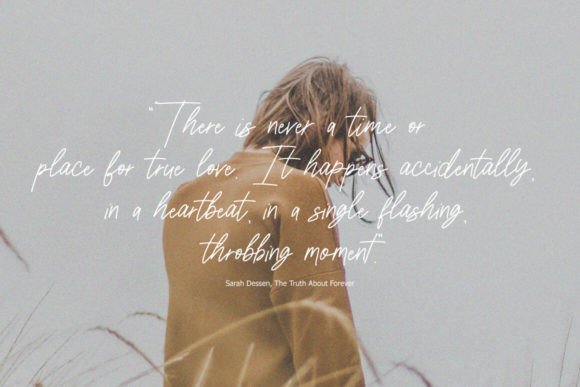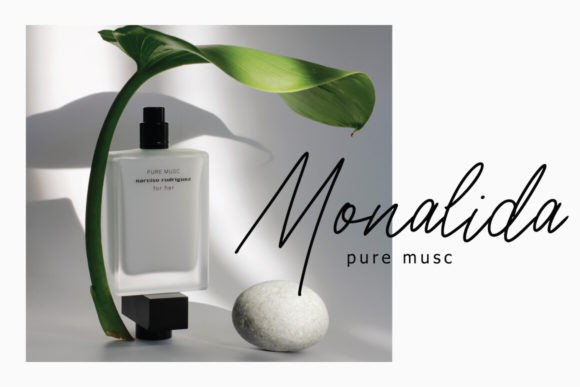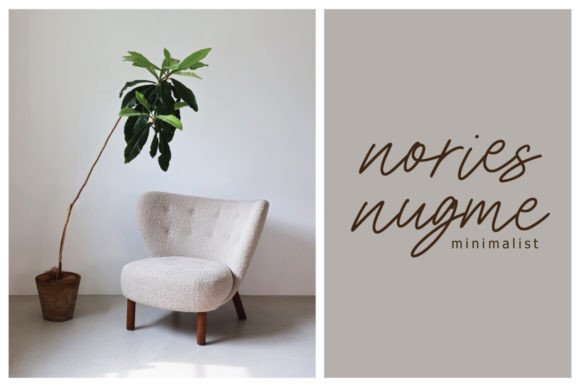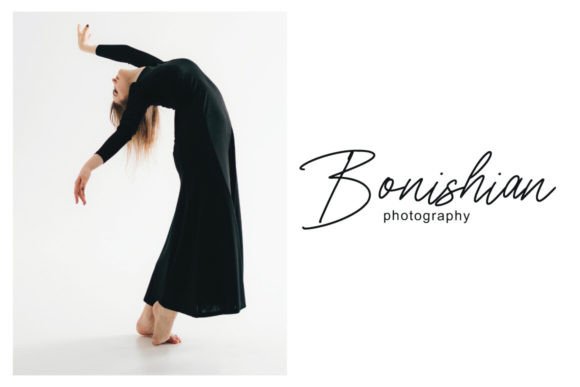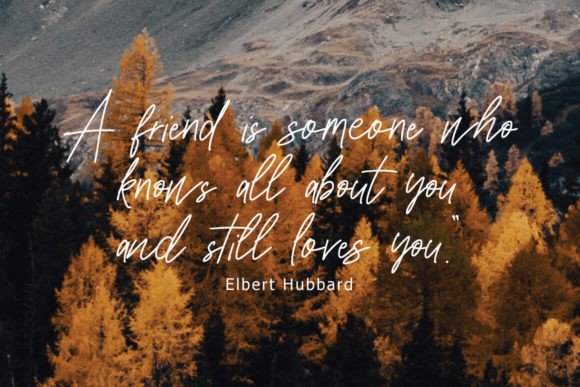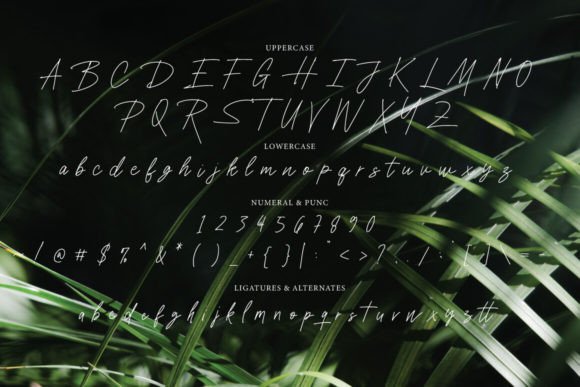
Unveiling the Beauty of Sendian Font
Have you ever stared at a blank canvas, waiting for the perfect font to bring your creative project to life? As designers, we’ve all been there – searching for that one special font that sets our work apart. For many, that elusive font is the Sendian Font, a true gem that has captured the hearts of designers worldwide.
With its signature style, decorative characters, and dancing baseline, the Sendian Font is a versatile design resource that’s perfect for invitations, greeting cards, branding materials, business cards, quotes, posters, and more. Its 200+ glyphs offer endless possibilities, making it a valuable addition to any designer’s toolkit.
Key Features of Sendian Font
- Designed with a modern aesthetic, the Sendian Font is perfect for creating visually appealing and professional-looking designs.
Honest Review: Sendian Font
As a designer, I’m always on the lookout for high-quality design resources to elevate my creative projects. Recently, I came across the Sendian Font, which caught my attention with its modern and sleek aesthetic. In this review, I’ll share my honest thoughts on this font.
- ✨ High-quality design: The Sendian Font is well-crafted, with crisp lines and a clean typography that’s perfect for digital design projects.
- ✨ Versatile usage: This font is suitable for a wide range of creative projects, from web design to print materials, thanks to its modern and minimalist style.
- ⚠️ Limited character set: The font’s character set is relatively small, which might be a limitation for designers who require a more extensive set of characters.
Overall, the Sendian Font is a solid design resource that can add a touch of modernity to your creative projects. While it has some limitations, its high-quality design and versatility make it a great addition to any designer’s toolkit.
The Sendian Font is a high-quality design resource that can elevate your creative project to the next level. With its unique and stylish design, it’s perfect for any project that requires a touch of sophistication.
The Sendian Font is perfect for any design project that requires a touch of sophistication, including:
- Business cards and letterheads.